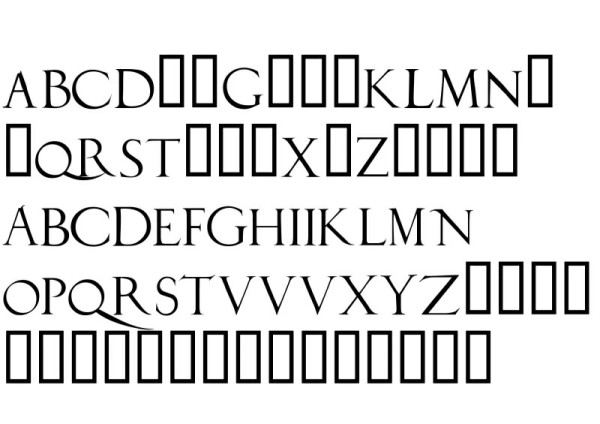
Duerer Latin Typeface. Albrecht Dürer (Germany, 1471-1528) drew these schematics to guide the novice in drawing letters because he was such a type snob and felt that type was going to hell already.
DUERER LATIN SERIF TYPEFACE